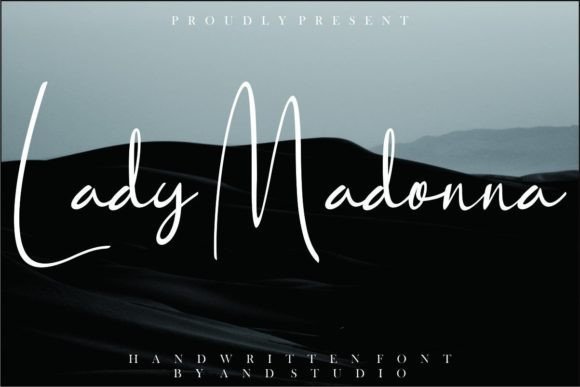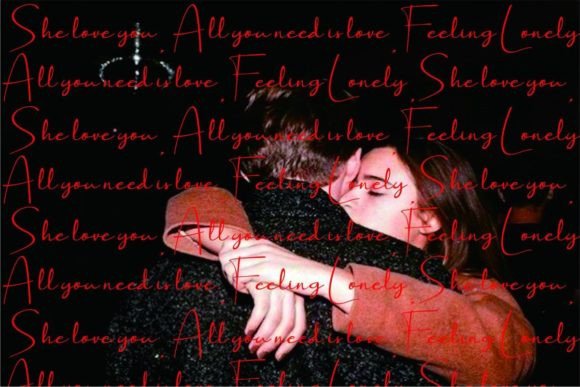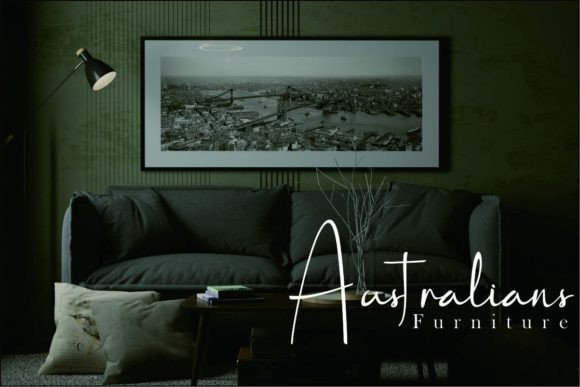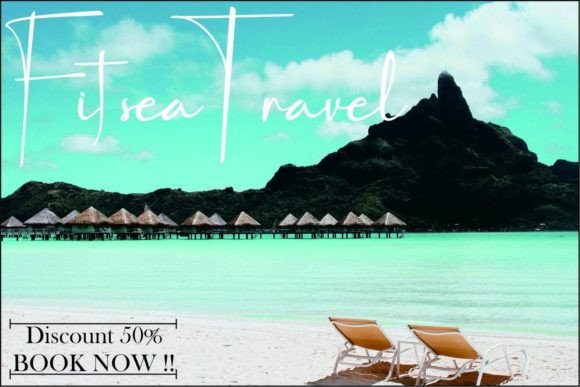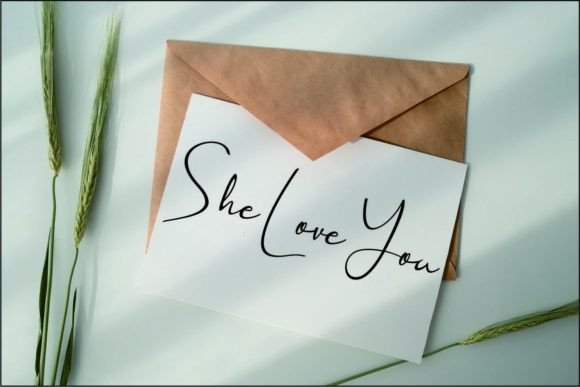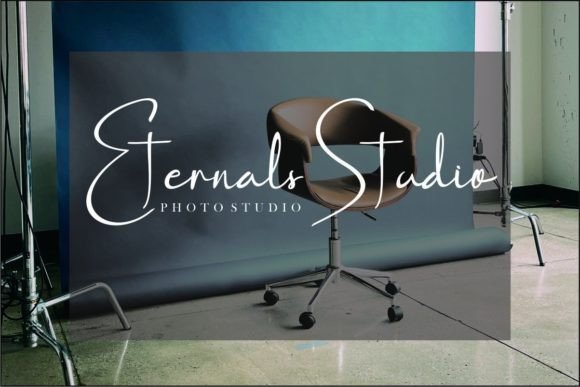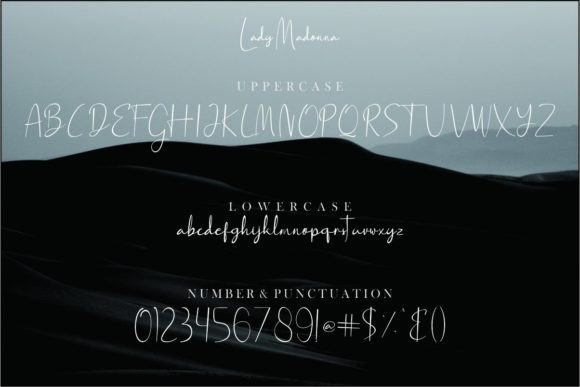
Lady Madonna Font
About Lady Madonna Font
“Lady Madonna: Where Charm Meets Elegance in Handwritten Typography
Introducing Lady Madonna, a font that effortlessly embodies both charm and elegance. With its graceful letterforms and timeless style, Lady Madonna adds a touch of sophistication to any design it graces. Whether you’re creating wedding invitations, thank you cards, quotes, greeting cards, logos, business cards, or any other project requiring a handwritten touch, Lady Madonna becomes the epitome of refined beauty, leaving a lasting impression on your audience.
The allure of Lady Madonna lies in its charming and elegant demeanor, where each letter is crafted with finesse and grace. Its flowing strokes and delicate curves create a visual poetry that captures the essence of sophistication. Imagine your wedding invitations adorned with Lady Madonna’s graceful script, setting the stage for a romantic and memorable celebration. Picture your business cards featuring its charming letterforms, leaving a lasting impression with a touch of timeless elegance. With Lady Madonna, your designs exude a sense of refinement, making them visually captivating and emotionally resonant.
One of Lady Madonna’s standout features is its versatility. Its charming and elegant design allows it to adapt seamlessly to various applications, from invitations and greeting cards to logos and quotes. Whether you’re designing elegant stationery or crafting a memorable logo, Lady Madonna enhances your designs with its sophisticated charm, making them stand out with a unique blend of charm and elegance.
Moreover, Lady Madonna is more than just a font; it’s an embodiment of grace and timeless beauty. Its charming and elegant presence resonates with individuals who appreciate the beauty of handwritten typography, making it a favorite among designers and enthusiasts seeking a font that exudes sophistication and class. Its letters sweep across the canvas with a sense of poise and refinement, adding a layer of depth and artistic flair to your designs.
In a world where elegance knows no boundaries, Lady Madonna helps you make a statement. It speaks the language of charm and elegance, resonating with those who appreciate the beauty of handwritten artistry with a touch of grace. Whether you’re designing for weddings, branding, or any creative endeavor, Lady Madonna becomes your trusted companion, guiding you toward design excellence.
So, why settle for ordinary when you can embrace the extraordinary with Lady Madonna? Let this charming and elegant handwritten font be the muse for your creative expressions, and watch as your projects come to life with sophistication, grace, and timeless beauty. Let your creativity flow, and let Lady Madonna be the brushstroke that paints your ideas into visually captivating masterpieces, leaving a lasting impression on the hearts of your audience.”